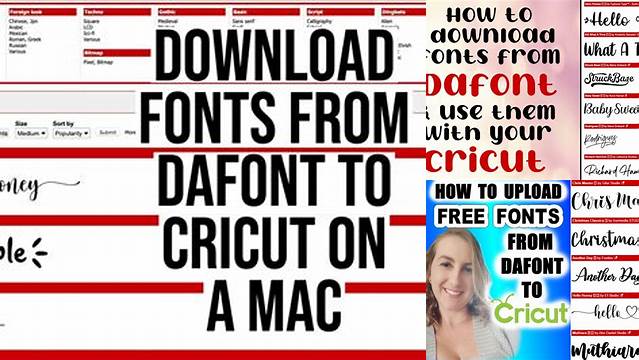
Use DaFont Fonts In Cricut Design Space: A Step-by-Step Guide
Hey guys! Ever stumbled upon the perfect font on DaFont and wondered how to use it in your Cricut projects? You're not alone! Cricut Design Space is an amazing tool, but getting those custom fonts from external sources can seem a bit tricky at first. No worries, though! This guide will walk you through the entire process, step by step, so you can start using those awesome DaFont fonts in your projects in no time. We’ll cover everything from downloading and installing the fonts to troubleshooting common issues. So, grab a cup of coffee, get comfy, and let’s dive into the world of custom fonts on Cricut Design Space!
Understanding DaFont and Font Compatibility
Before we jump into the how-to, let's talk a little about DaFont and font compatibility. DaFont is a fantastic online resource where you can find thousands of fonts, many of which are free for personal use. It's a treasure trove for crafters and designers! However, not all fonts are created equal, and understanding a bit about font formats can save you a lot of headaches. Most fonts you'll find on DaFont come in two main formats: TTF (TrueType Font) and OTF (OpenType Font). Both formats work well with Cricut Design Space, but OTF fonts often have more advanced features like ligatures and alternate characters. These extra features can add a special touch to your designs, making them look even more professional and unique. When you're browsing DaFont, pay attention to the licensing information for each font. Many fonts are free for personal use but require a commercial license if you plan to use them for projects you sell. It's always best to respect the font creator's terms and conditions. Also, it's worth noting that while Cricut Design Space supports a wide range of fonts, some very complex or highly stylized fonts might not render perfectly. If you encounter issues with a particular font, try a different one or simplify your design slightly. The key takeaway here is to explore, experiment, and have fun finding the perfect fonts for your creative projects!
Step-by-Step Guide to Downloading Fonts from DaFont
Okay, let's get to the fun part: downloading fonts! Navigating DaFont is super easy, but let's break down the process step by step so you don't miss anything. First, head over to the DaFont website (www.dafont.com). The homepage is like a candy store for font lovers, with tons of options to browse. You can scroll through the latest additions, check out popular fonts, or use the categories at the top to narrow down your search. Looking for a whimsical script font? Or maybe a bold, modern sans-serif? The categories make it easy to find what you need. Once you've found a font you love, click on its name to see a preview. This page will show you all the characters in the font, including uppercase and lowercase letters, numbers, and symbols. It's a great way to get a feel for the font's style and make sure it fits your project. You'll also find important information like the font's license and the author's name. Now, the big moment: downloading the font! On the font's preview page, you'll see a "Download" button on the right-hand side. Click it, and the font file will start downloading to your computer. Most fonts come in a zipped folder, which helps keep the file size manageable. Once the download is complete, you'll need to unzip the folder to access the font files. On Windows, you can usually right-click the zipped folder and select "Extract All." On a Mac, double-clicking the folder should do the trick. Inside the extracted folder, you'll find the font files, typically in TTF or OTF format. And that's it! You've successfully downloaded a font from DaFont. Now, let's move on to installing it on your computer.
Installing Fonts on Your Computer (Windows and Mac)
Alright, you've downloaded your awesome new font – fantastic! But it's not going to magically appear in Cricut Design Space just yet. You need to install it on your computer first. Don't worry; it's a pretty straightforward process, and I'll walk you through it for both Windows and Mac. Let's start with Windows. Locate the font file you downloaded (it'll likely be in your Downloads folder). Remember, it's usually a TTF or OTF file. Right-click on the font file, and you'll see a menu pop up. Select "Install" (or sometimes "Install for all users," which is a good option if you have multiple user accounts on your computer). Windows will then install the font, and you'll see a little progress bar. Once it's done, the font is installed and ready to use in any program on your computer, including Cricut Design Space. Now, let's move on to Mac. The process is just as simple. Find the font file in your Downloads folder and double-click it. This will open Font Book, which is the font management application on macOS. In Font Book, you'll see a preview of the font and a button that says "Install Font" at the bottom. Click that button, and Font Book will install the font. You might be prompted to validate the font, which is a good idea to ensure it's working correctly. Just follow the on-screen instructions. Once the font is installed, it's available for use in all your applications. A quick tip: If you have a lot of fonts to install, you can select multiple font files and install them all at once on both Windows and Mac. This can save you a bunch of time and clicks! And that's all there is to it. You've successfully installed your new font. Now, let's get it working in Cricut Design Space.
Adding Installed Fonts to Cricut Design Space
Okay, you've downloaded and installed your new font – awesome! Now, how do you actually use it in Cricut Design Space? This part is crucial, and there's one key thing to remember: If you had Cricut Design Space open while you installed the font, you'll need to restart the program. Cricut Design Space loads its font list when it starts up, so it won't recognize any fonts installed while it's running. So, close Cricut Design Space completely, and then reopen it. Once it's open again, start a new project or open an existing one. To use your new font, you'll first need to add some text to your canvas. Click on the "Text" tool in the left-hand panel. A text box will appear on your canvas, and you can type your desired text. With the text box selected, look at the top toolbar. You'll see a dropdown menu labeled "Font." This is where you can choose the font for your text. Click the dropdown, and a font list will appear. Now, here's the trick to finding your new font: Cricut Design Space categorizes fonts into two main sections: Cricut fonts and system fonts. Cricut fonts are the ones that come with Cricut Design Space or that you've purchased through Cricut Access. System fonts are the ones installed on your computer, including the one you just installed from DaFont! To see your installed font, click on the "System" tab in the font list. This will show you all the fonts installed on your computer. You can scroll through the list to find your font, or you can use the search bar at the top to type in the font's name. Once you find your font, click on it to apply it to your text. And that's it! Your text will now appear in your chosen font. You can adjust the size, color, and other properties of the text just like you would with any other font in Cricut Design Space. If you don't see your font in the system fonts list, double-check that you installed it correctly and that you've restarted Cricut Design Space. Sometimes, a simple restart is all it takes to fix the issue. Now, go ahead and experiment with your new fonts and create some amazing projects!
Even with the best instructions, sometimes things don't go quite as planned. So, let's talk about some common issues you might encounter when using DaFont fonts in Cricut Design Space and how to troubleshoot them. One of the most common problems is not seeing the font in Cricut Design Space after installing it. As we mentioned earlier, the most likely culprit is that you didn't restart Cricut Design Space after installing the font. Make sure you completely close the program and reopen it. This forces Cricut Design Space to reload its font list. If you've restarted and still don't see the font, double-check that you installed it correctly on your computer. Go back to the steps for installing fonts on Windows or Mac and make sure you followed each one. Another potential issue is the font not displaying correctly in Cricut Design Space. This can happen if the font is corrupted or if it has compatibility issues with Cricut Design Space. Try downloading the font again from DaFont to make sure you have a good copy. If that doesn't work, try a different font to see if the problem is specific to that font or a more general issue. Sometimes, fonts with very intricate designs or unusual characters might not render perfectly in Cricut Design Space. If you're having trouble with a particular font, you might need to simplify your design or choose a different font. Font spacing issues can also occur, where letters appear too close together or too far apart. Cricut Design Space has some built-in tools for adjusting letter spacing, so you can tweak the text until it looks just right. Use the letter spacing and line spacing options in the top toolbar to fine-tune the appearance of your text. If you're still having trouble, don't hesitate to consult online forums or Cricut support. There's a wealth of information available, and chances are someone else has encountered the same issue and found a solution. The key is to be patient, methodical, and don't give up! With a little troubleshooting, you'll be back to creating beautiful projects with your new fonts in no time.
Tips for Using Fonts Effectively in Cricut Design Space
Now that you know how to get those fantastic DaFont fonts into Cricut Design Space, let's talk about using them effectively. Choosing the right font can make a huge difference in the overall look and feel of your project. Consider the style you're going for. A playful script font might be perfect for a birthday card, while a clean sans-serif font might be better suited for a professional-looking sign. Think about the message you're trying to convey and choose a font that complements it. Pairing fonts is another important skill. Using too many different fonts in one project can look cluttered and overwhelming. A good rule of thumb is to stick to two or three fonts at most. Pair a decorative font with a simpler one for balance. For example, you might use a script font for a heading and a sans-serif font for the body text. Pay attention to legibility. A beautiful font is useless if it's hard to read. Make sure your font is clear and easy to understand, especially for important information. Avoid using overly stylized or decorative fonts for large blocks of text. Consider the size and scale of your project. A font that looks great at a large size might not work as well when it's scaled down. Test your font at different sizes to make sure it remains legible and visually appealing. Use the kerning and letter spacing tools in Cricut Design Space to fine-tune the appearance of your text. Kerning refers to the spacing between individual letters, while letter spacing adjusts the overall spacing between all letters. These tools can help you create a polished and professional look. Experiment with different font styles like bold, italic, and underline. These styles can add emphasis and visual interest to your text. However, use them sparingly to avoid overwhelming the design. Don't be afraid to break the rules! These tips are a great starting point, but the most important thing is to have fun and experiment. Try different fonts, combinations, and styles to find what works best for you. The more you practice, the better you'll become at choosing and using fonts effectively in your Cricut projects.
So there you have it, guys! You're now equipped with all the knowledge you need to download, install, and use those awesome DaFont fonts in your Cricut Design Space projects. From understanding font compatibility to troubleshooting common issues, we've covered it all. Remember, the key is to take it one step at a time, and don't be afraid to experiment. Fonts can truly elevate your crafting game, adding that perfect touch of personality and style to your creations. Whether you're making personalized gifts, home décor, or party decorations, the right font can make all the difference. So, go ahead, unleash your creativity, and start exploring the endless possibilities that custom fonts offer. Happy crafting, and I can't wait to see what amazing projects you come up with!